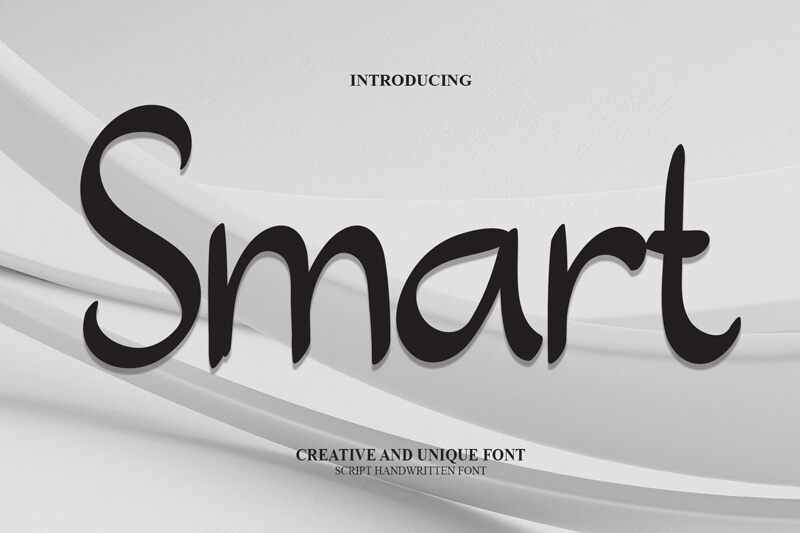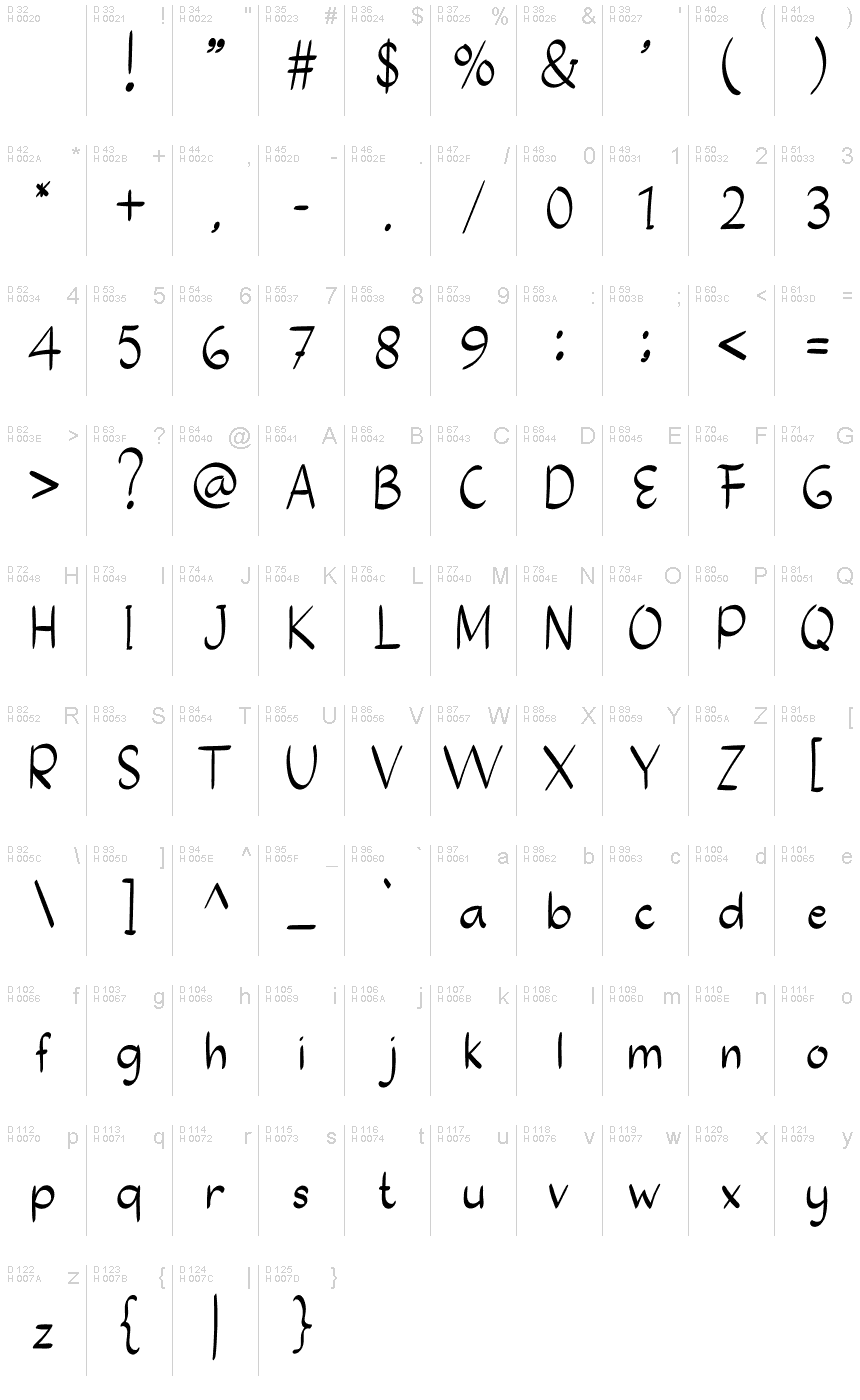
Smart
The Smart font, designed by Belina Studio, is a stunning semi-light handwritten typeface that combines elegance and playfulness. With its unique cursive style and subtle strokes, it is perfect for projects that require a personal touch, such as wedding invitations, greeting cards, or branding materials for boutique businesses. This font will enhance your website's readability and make your content stand out. Use the Smart font to add a touch of sophistication to your designs while maintaining a casual feel. Don't miss the opportunity to elevate your creative work with this beautiful typeface!
special creative products for you, our products will give you an extraordinary experience.
the latest style letters are perfect for wall displays, wedding invitations, social media post logos,
advertisements, product packaging, product designs, labels, photography, watermarks, invitations, stationery,
and any project that requires taste handwriting.